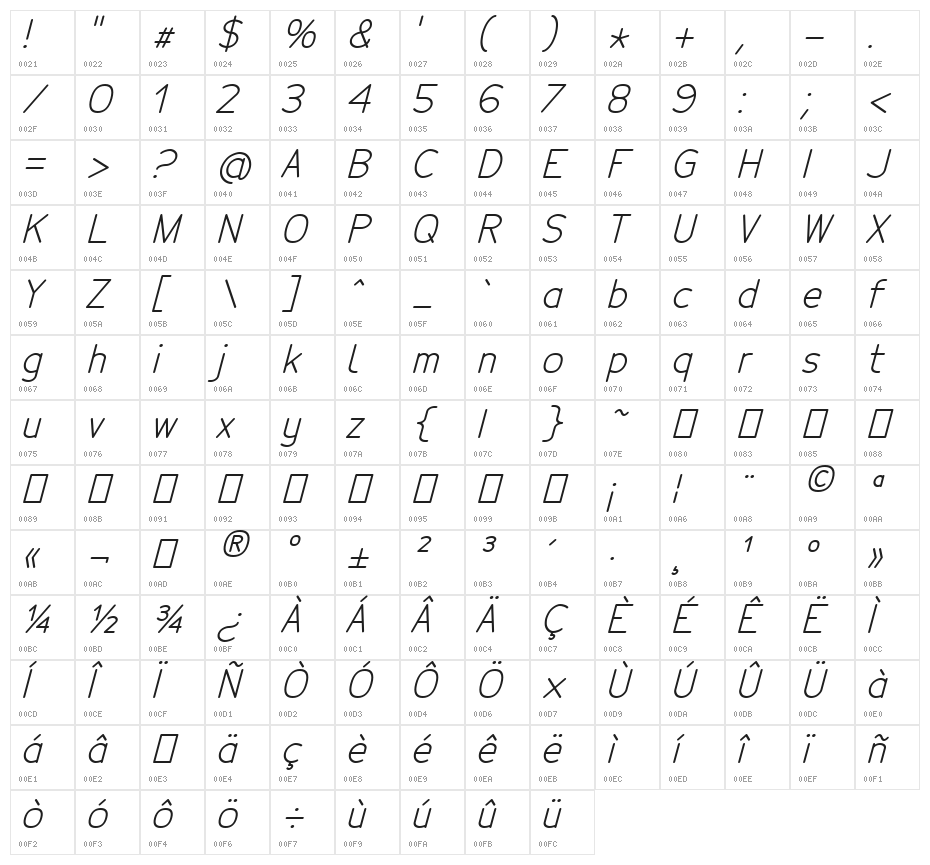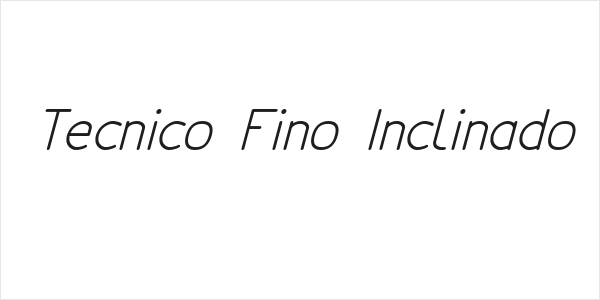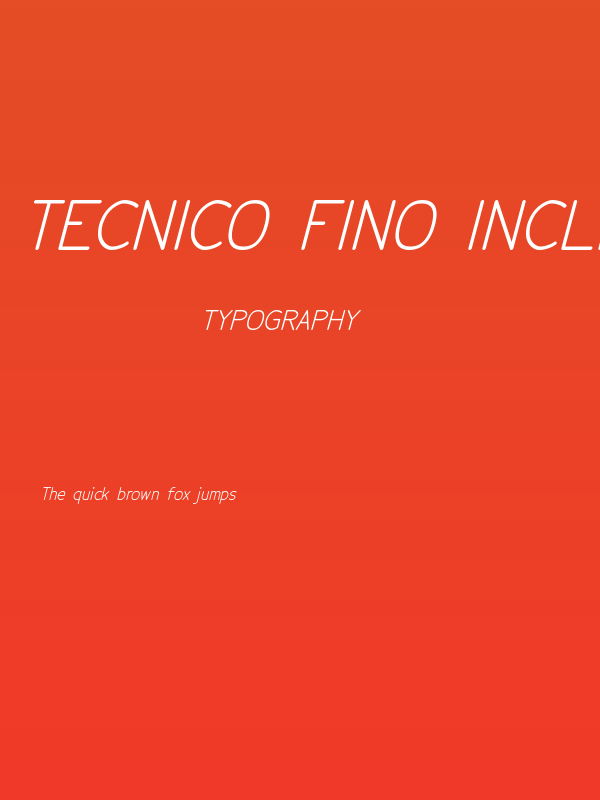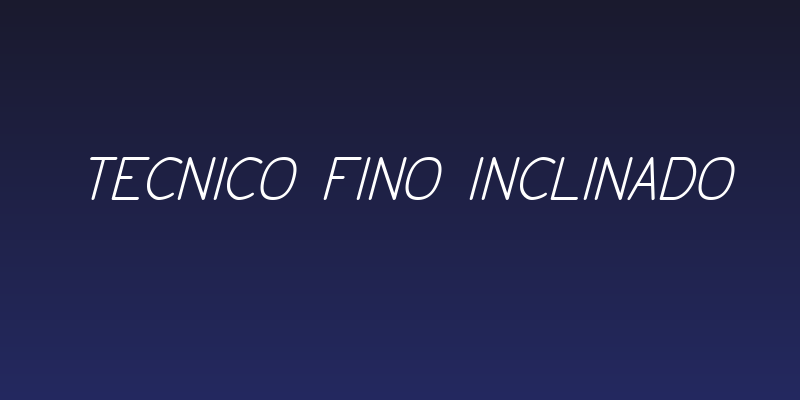
Tecnico Fino Inclinado Font
Tecnico Fino Inclinado Description
This font features a sleek, modern design with a slight incline, giving it a dynamic and forward-moving appearance. The characters are crafted with a thin, uniform stroke that maintains a consistent width throughout, contributing to a clean and minimalist aesthetic. The uppercase and lowercase letters are well-proportioned, with a slight slant that adds a sense of motion and elegance. The numerals are clear and legible, matching the overall style of the alphabet. Special characters are included, maintaining the same thin and inclined style, ensuring consistency across all glyphs. This font is ideal for projects that require a contemporary and professional look.
| Proposed Projects | Ideal for branding, advertising, modern web design, and editorial layouts. |